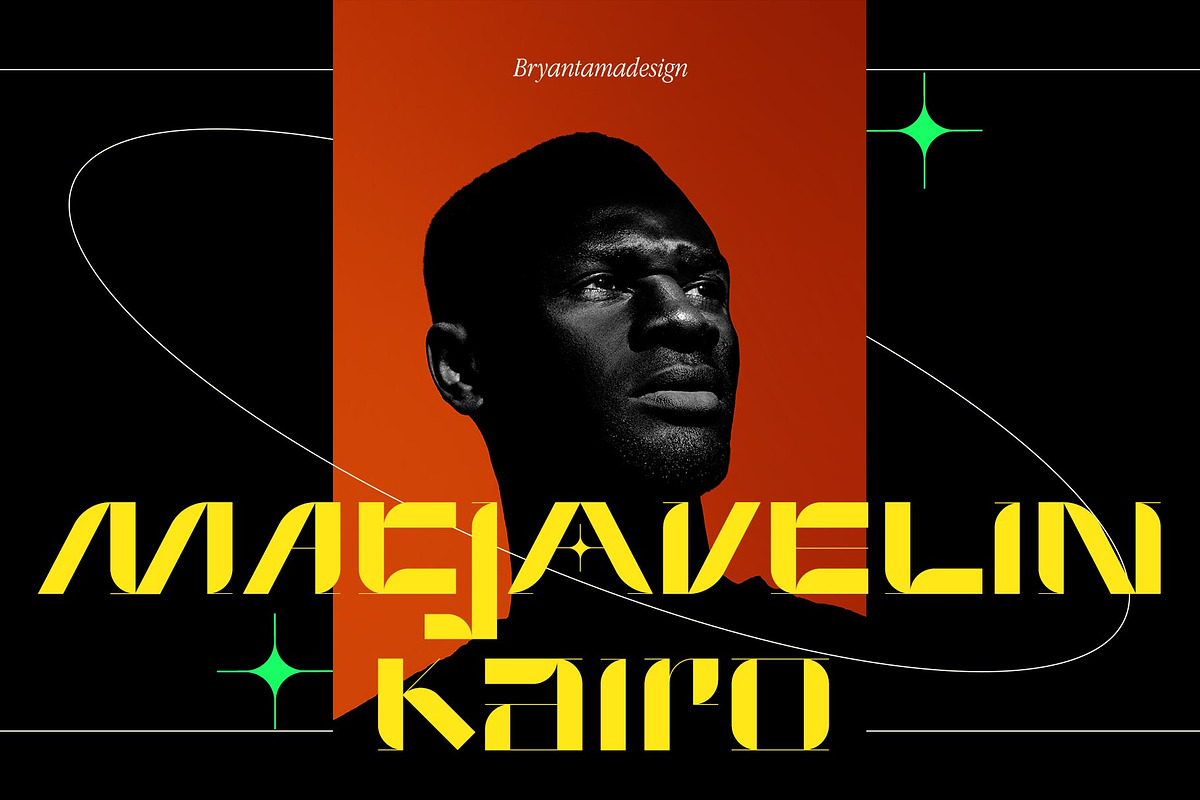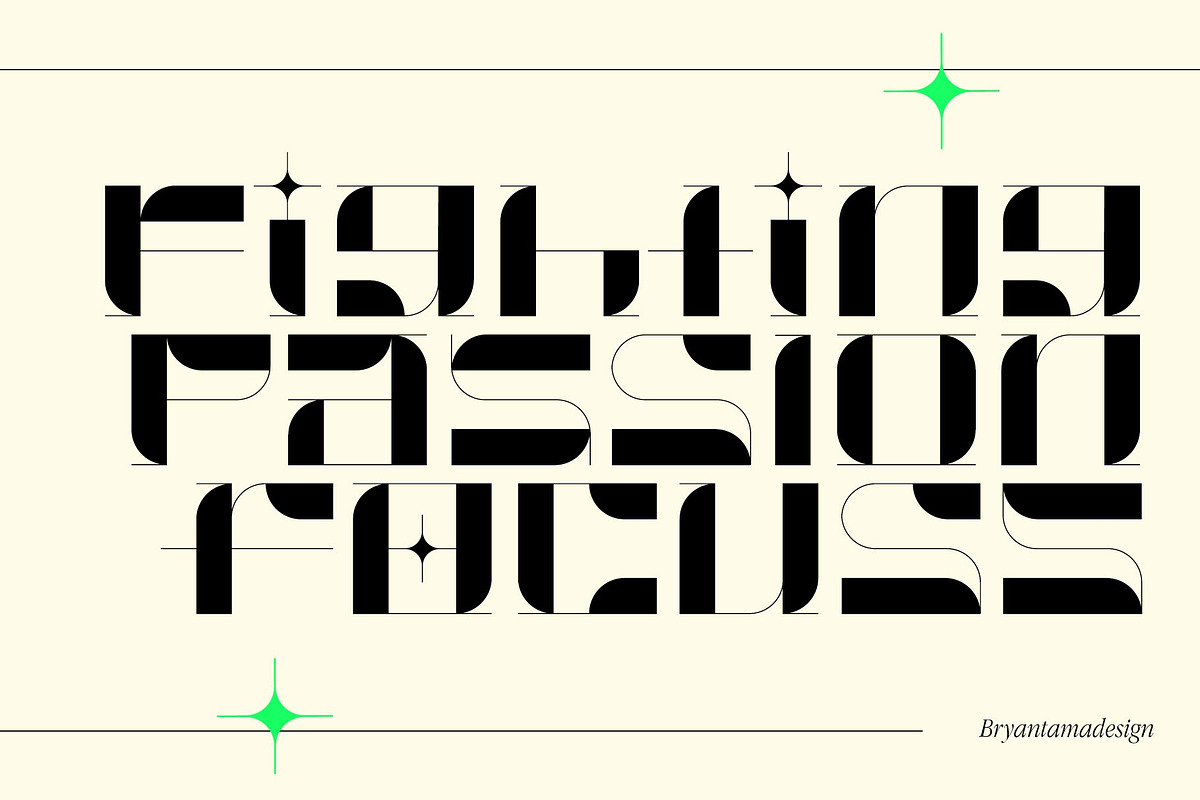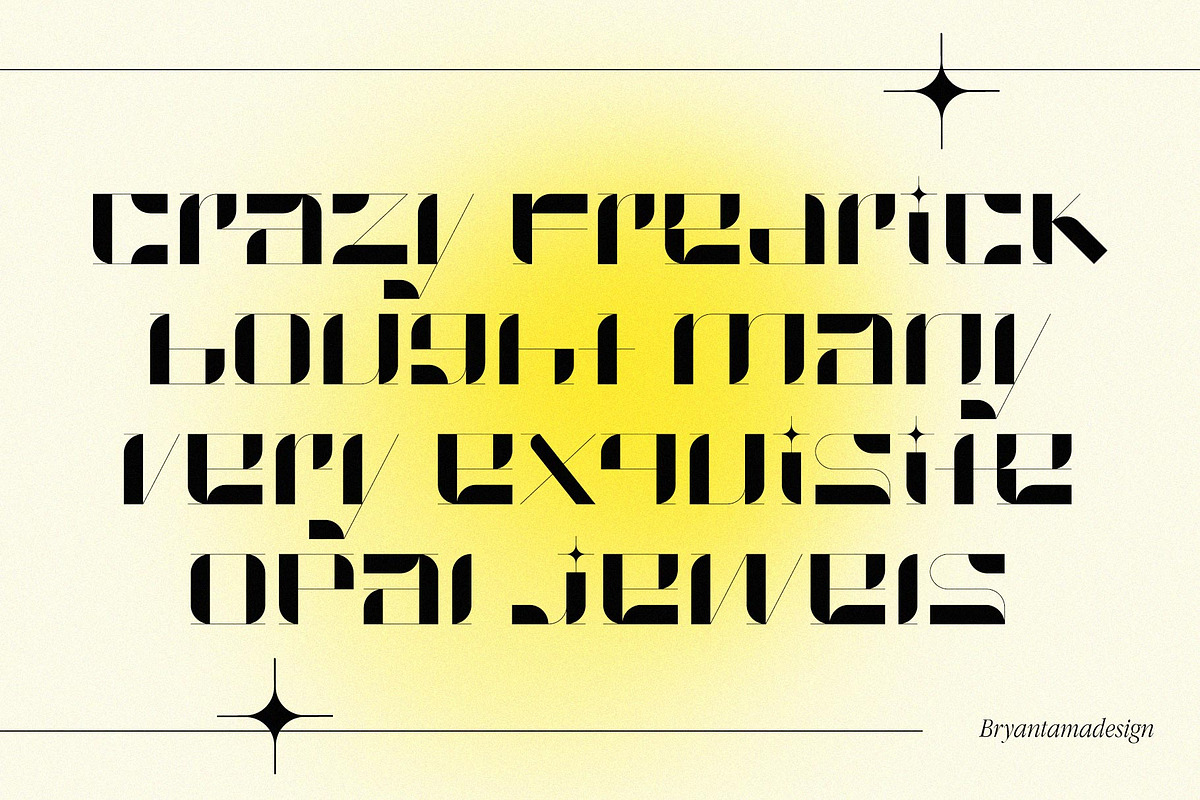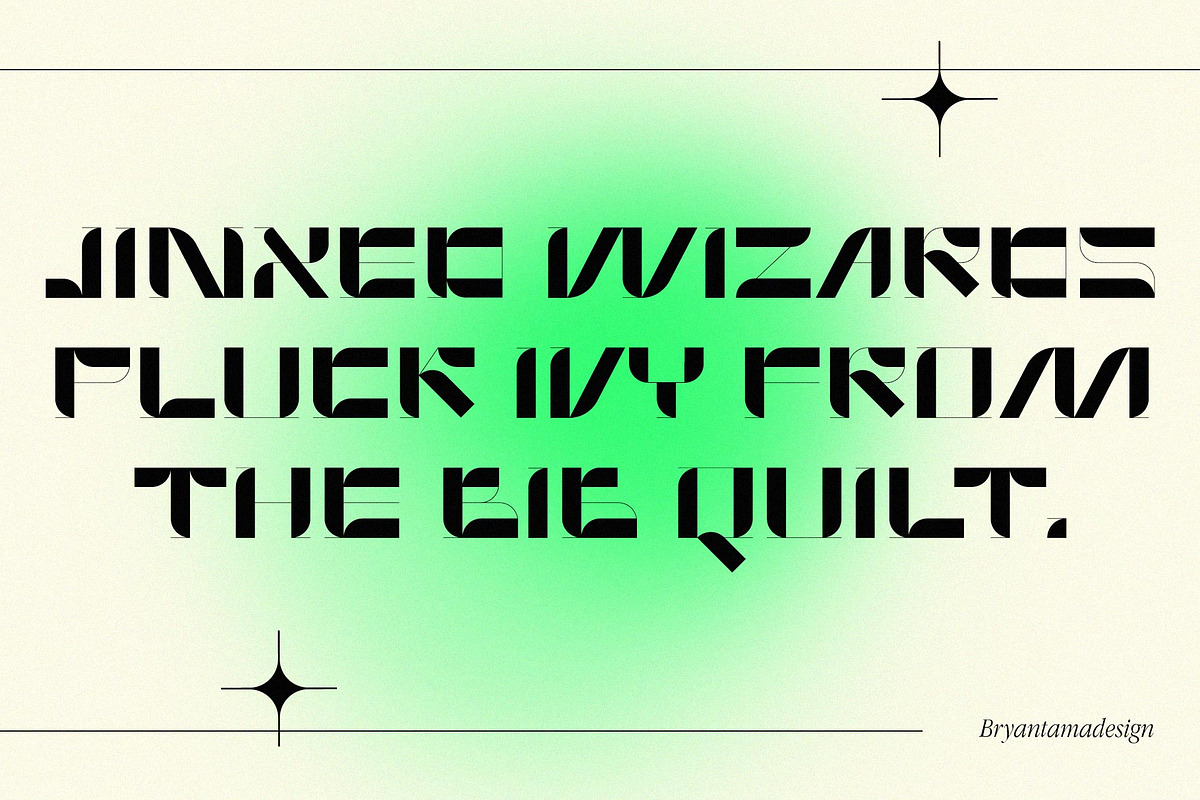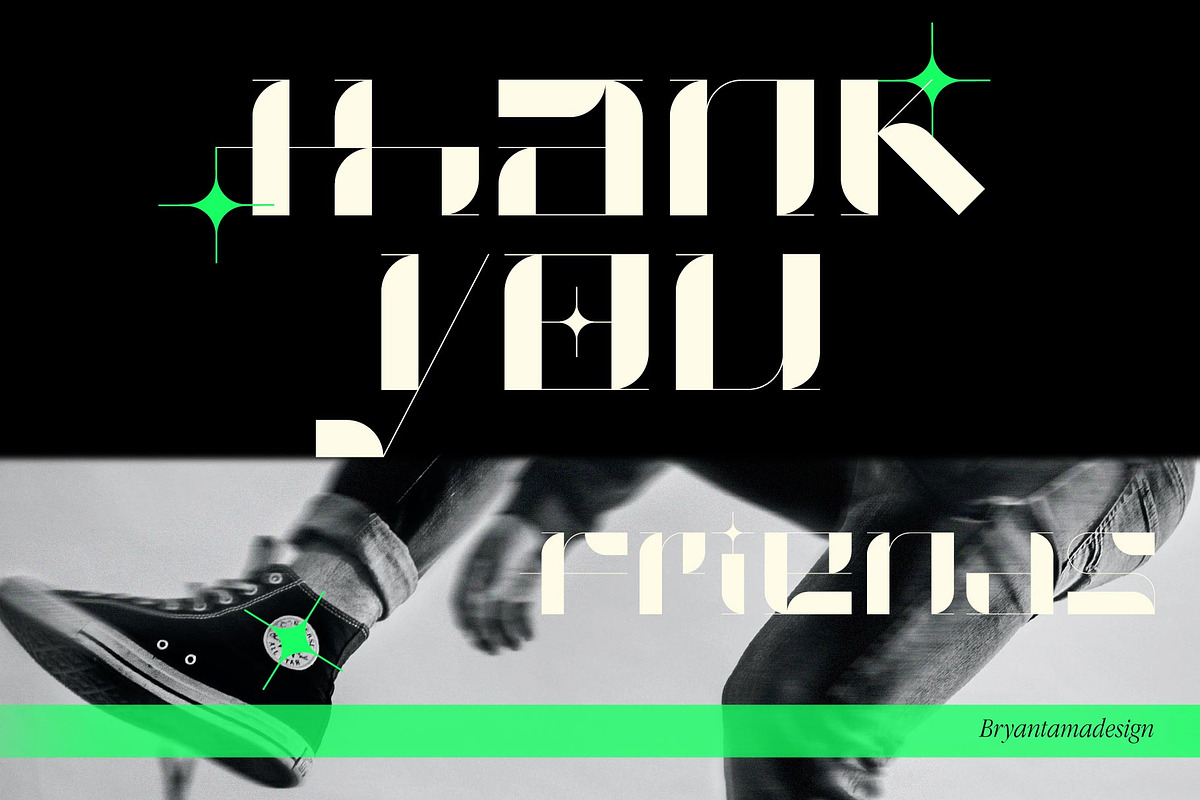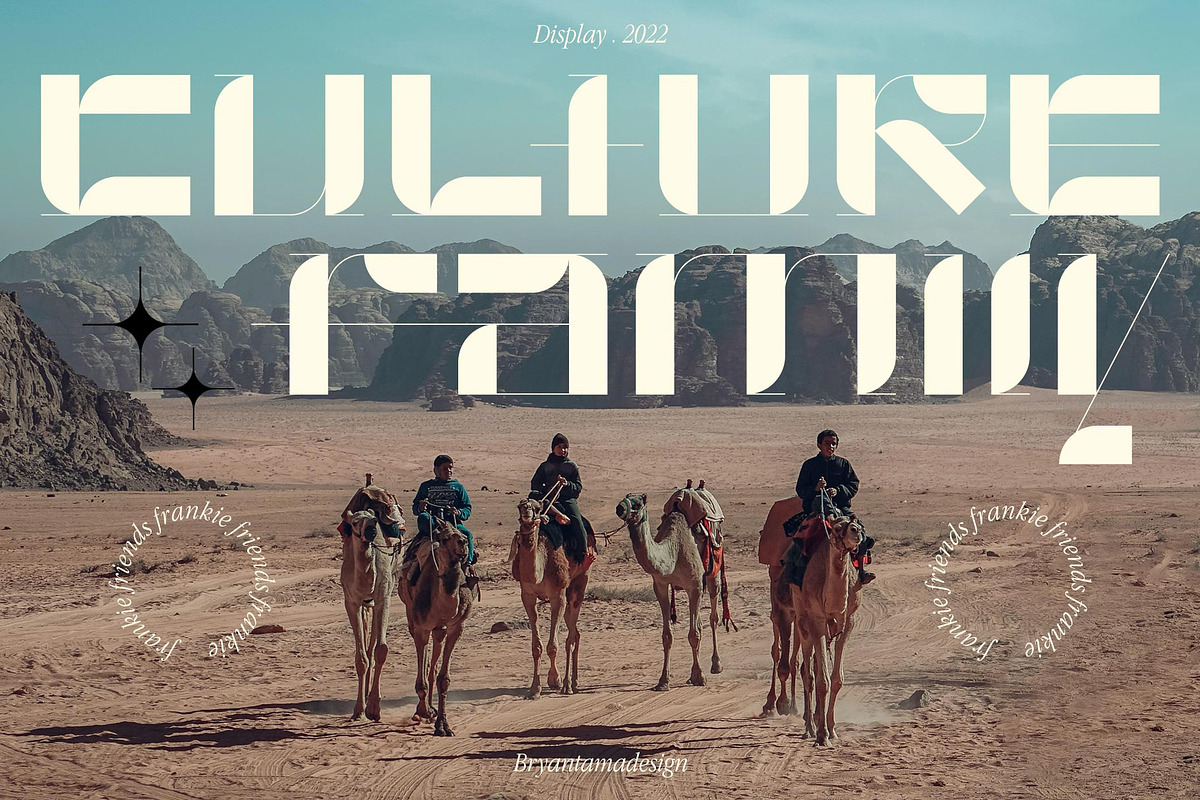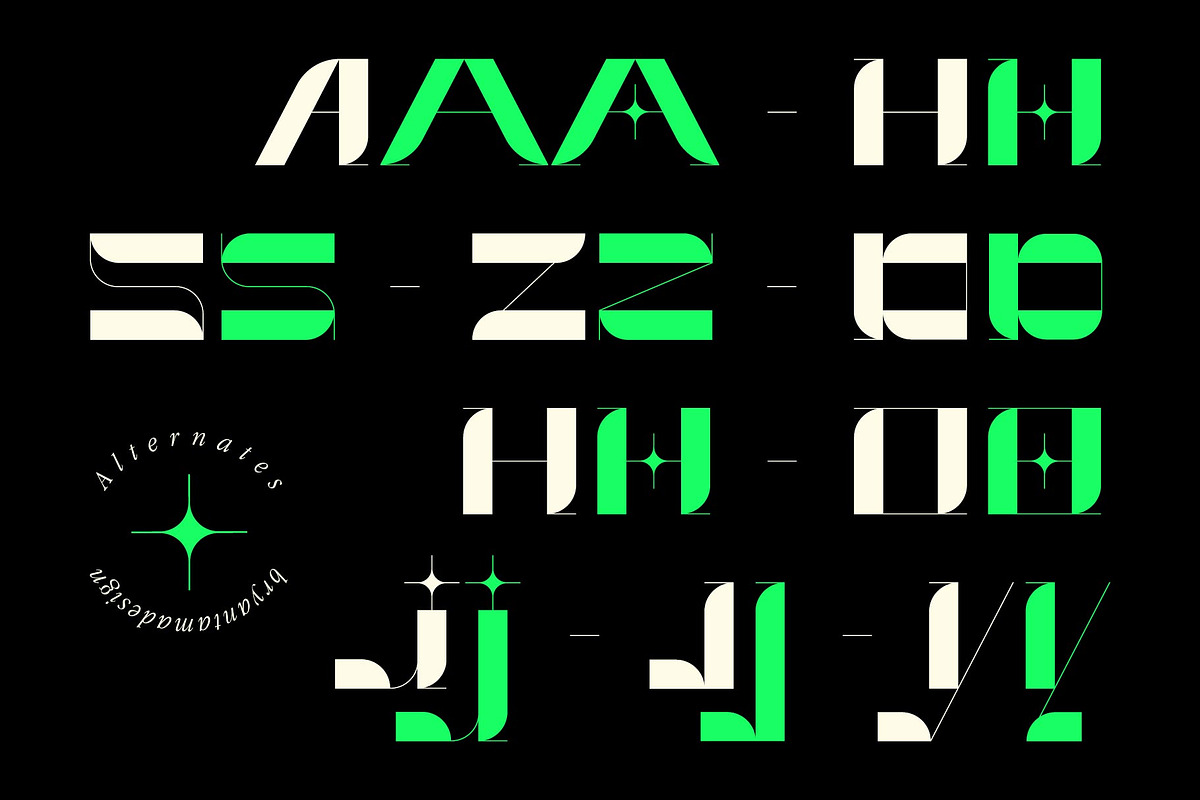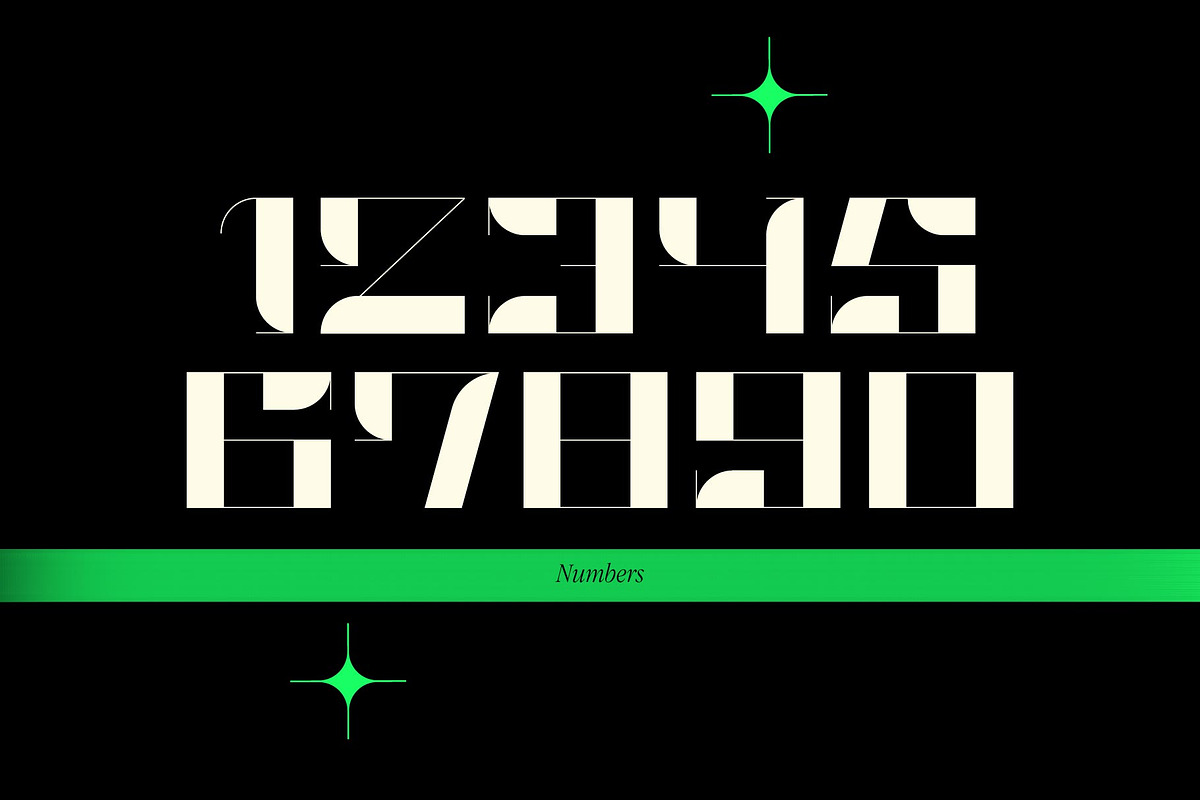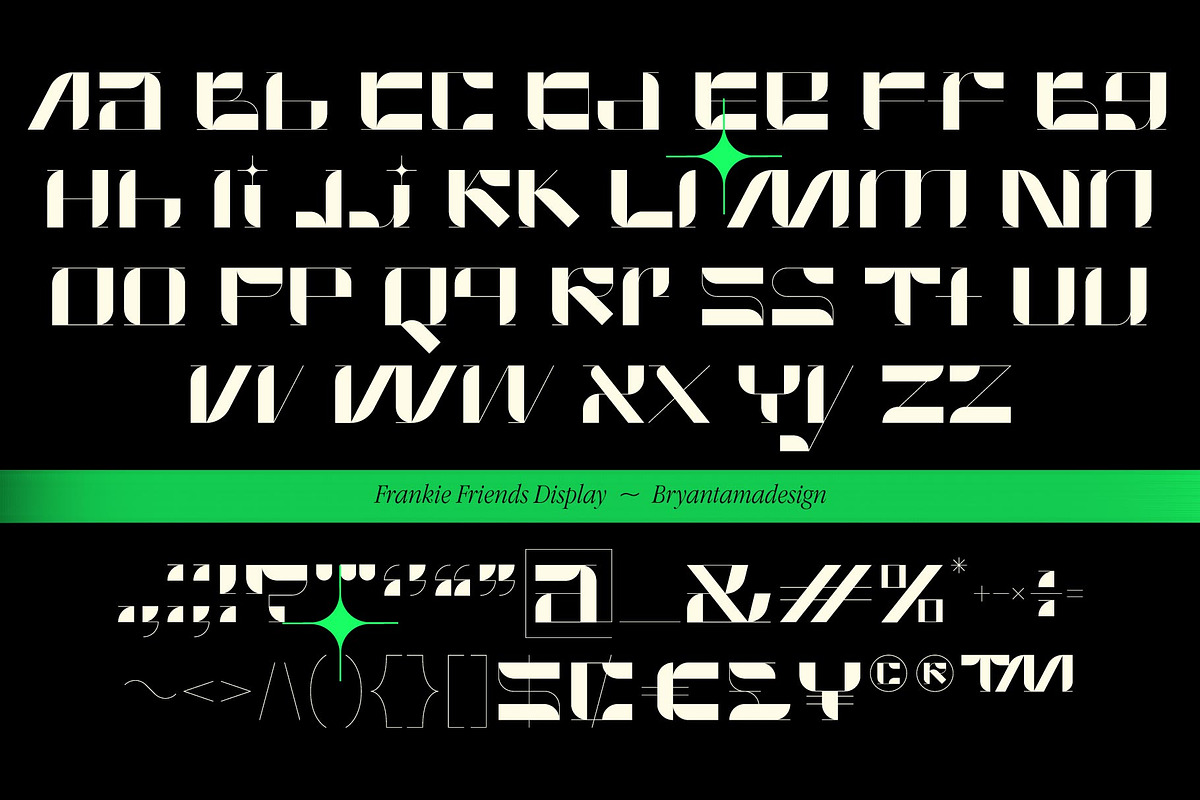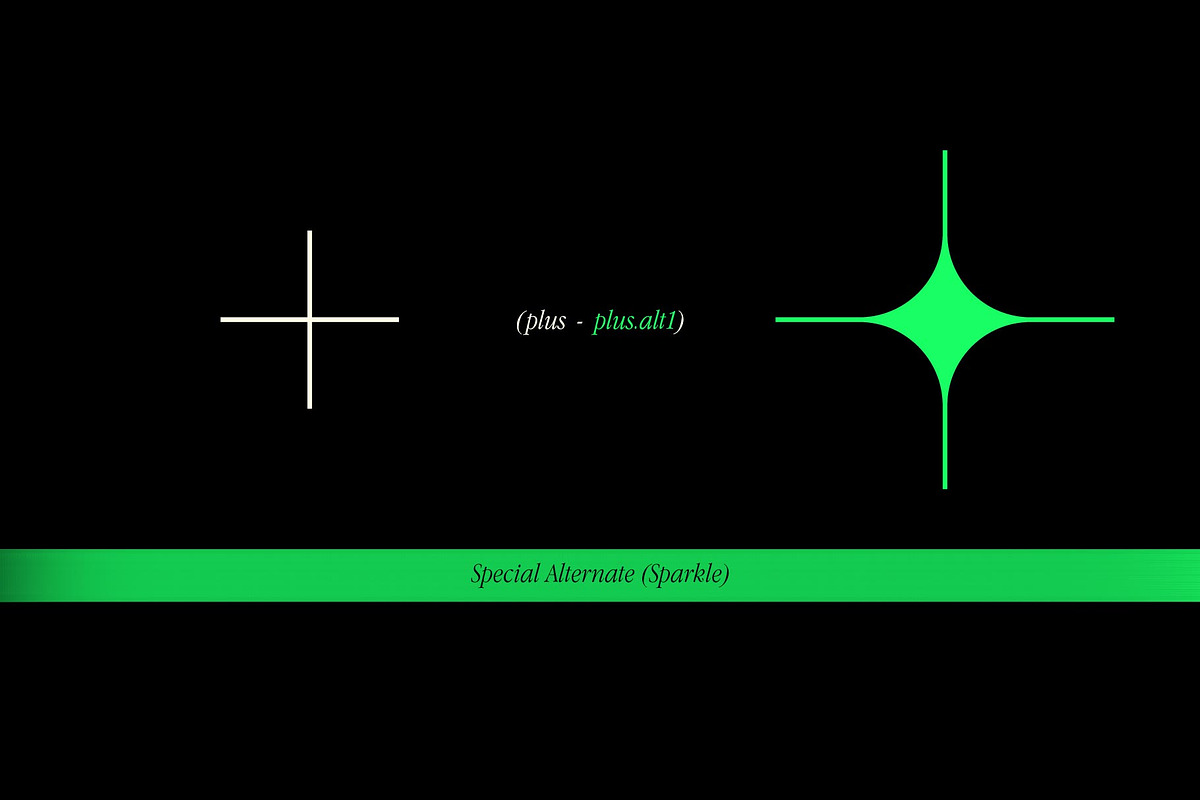
Frankie Friends - Modern Display
Introducing Frankie Friends. Modern Futuristic Display Font.
Inspired by modern sport, I create bold style type with a bit of sparkle (as you can see in the previews) that gives the font a unique personality, you can use it for branding, social media, posters, packaging, & more.
Uppercase, Lowercase, Numbers, Punctuation.
Opentype Features (Alternates & Ligatures).
Multilingual Support.
Elevate your designs with Frankie Fonts Font, a sophisticated display font defined by sleek lines and refined curves. Crafted for high-end branding, editorial layouts, and modern packaging, it delivers an effortless sense of class and exclusivity.